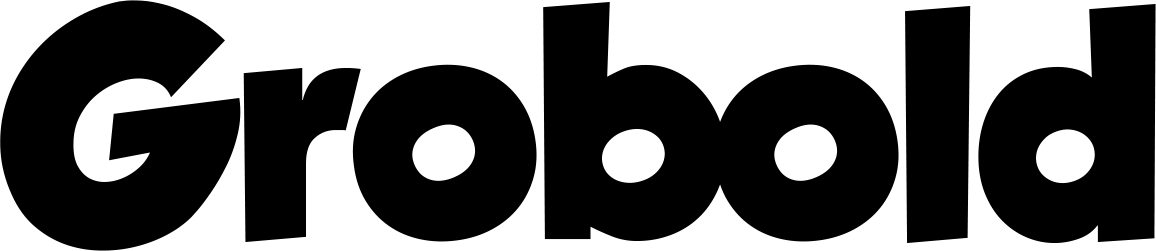
Grobold Font
Designed byGuy Buhry
Let your typography take on a much stronger look accompanied by a subtle touch of playfulness by applying Grobold which makes your text utterly hard not to be impressed by. Its friendly forget-me-not style is instantly shared with your design via its chunky smooth characters.
Guess what you can use this kind of happy cartoon font for? Simply anything! As long as you care for an energetic design, feel free to use Grobold for clothing, movies, games, books, or whatever.